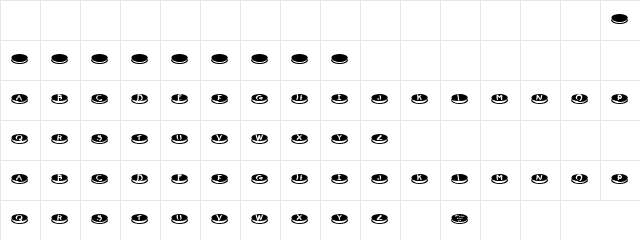
3d Coin Regular
Designer: JupiterImages
Design Context for 3d Coin
3d Coin is a composed and adaptable typeface that performs quietly and consistently across a wide range of design contexts.